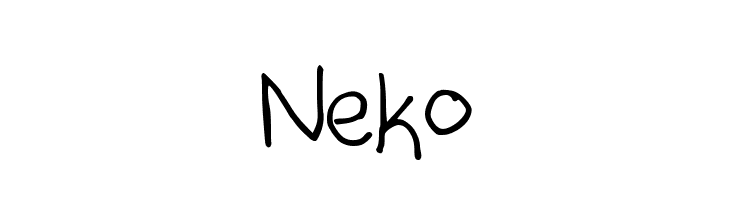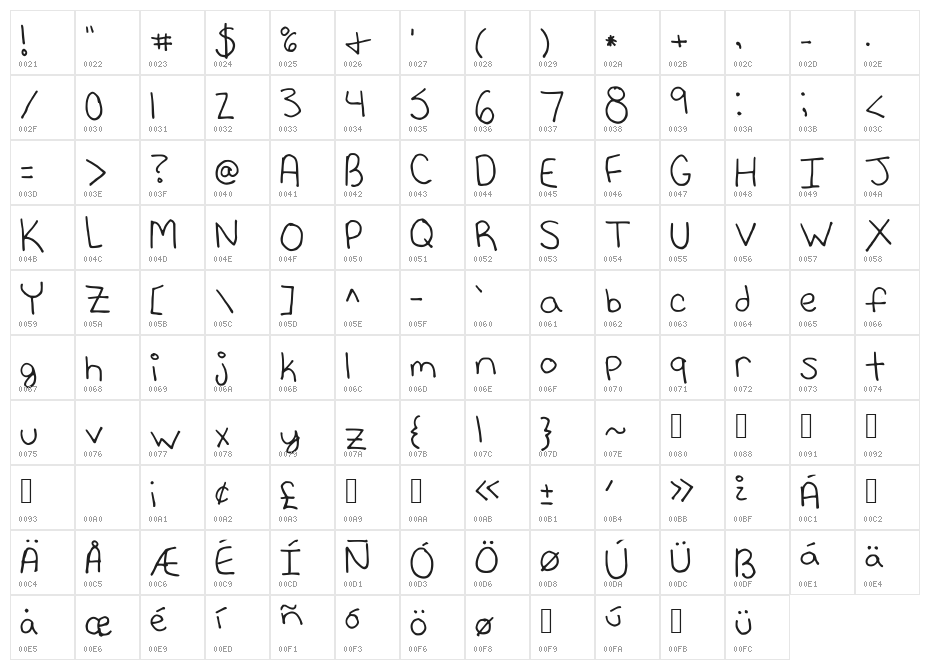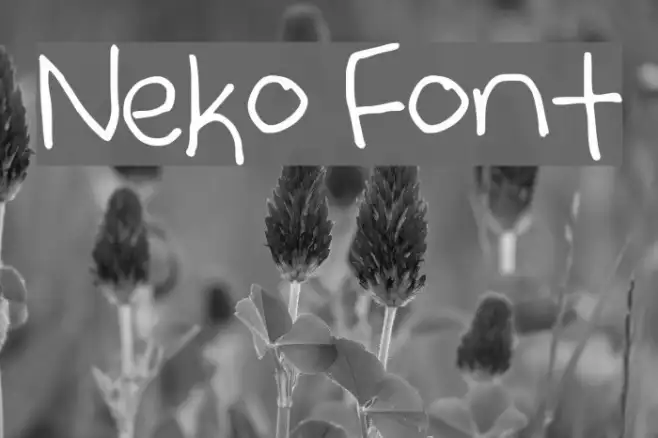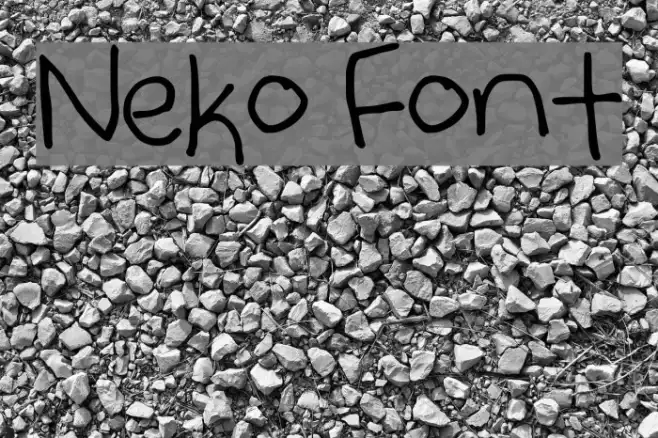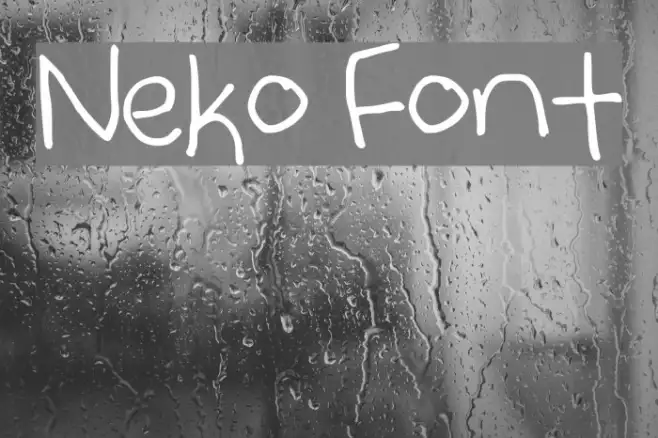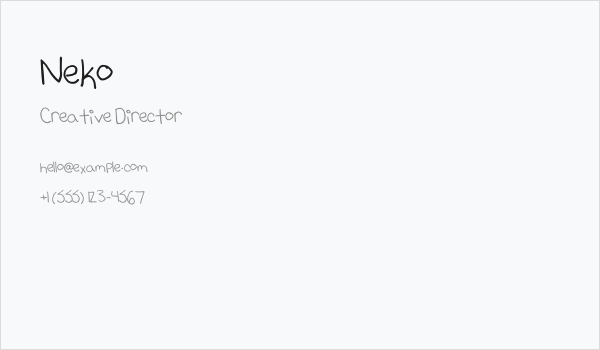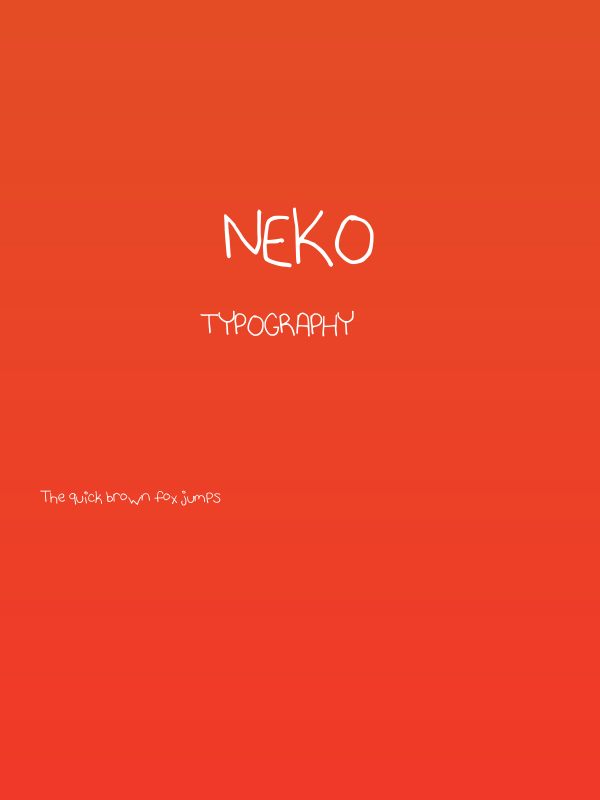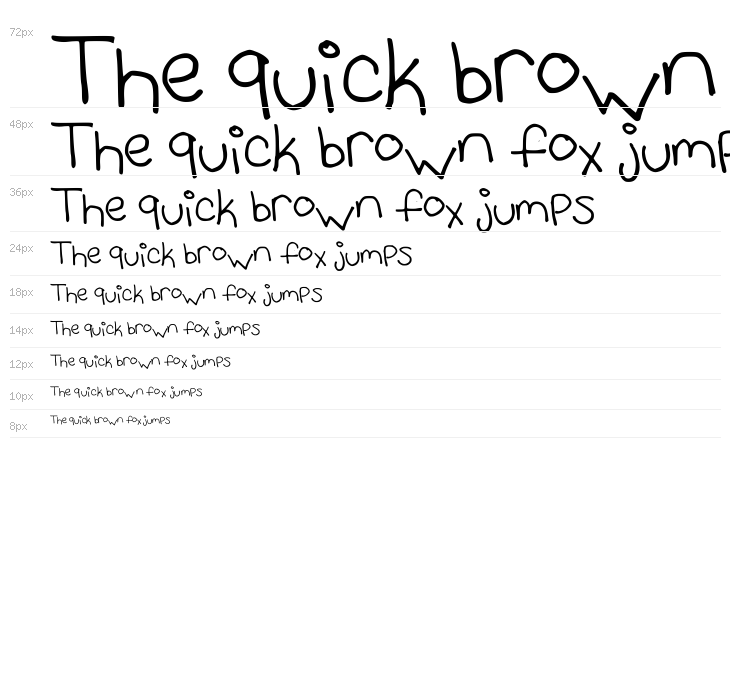
Neko Font
Neko Description
This font features a playful and casual handwritten style, characterized by its irregular and organic letterforms. The strokes are uneven, giving it a lively and informal appearance. The uppercase and lowercase letters maintain a consistent style, with rounded edges and a slightly tilted orientation, adding to its whimsical charm. The numerals and special characters follow the same playful design, making it suitable for creative and informal projects. The overall look is approachable and friendly, ideal for conveying a sense of fun and spontaneity.
| Proposed Projects | Ideal for children's books, greeting cards, casual invitations, and playful branding. |